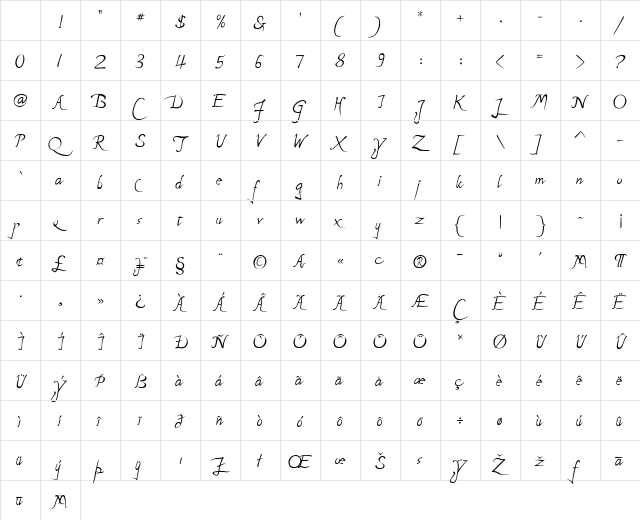
Complete P22MichelangeloRegular Medium glyph index. Displaying only characters natively supported by P22MichelangeloRegular Medium font.
P22MichelangeloRegular is a composed and adaptable typeface that performs quietly and consistently across a wide range of design contexts.